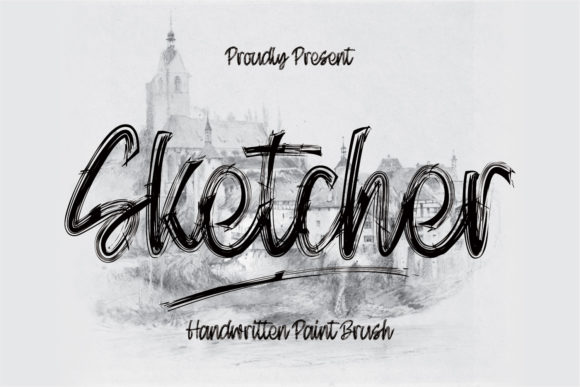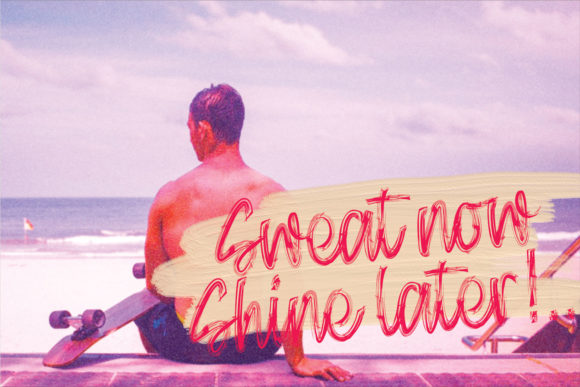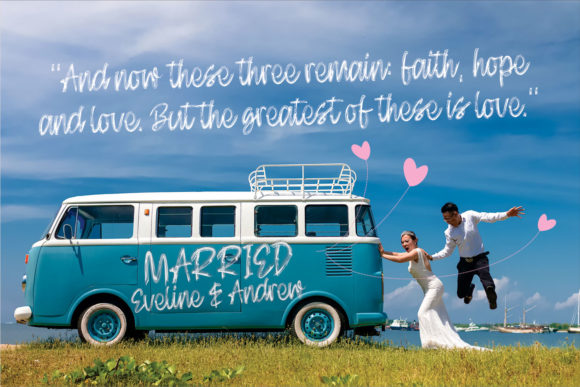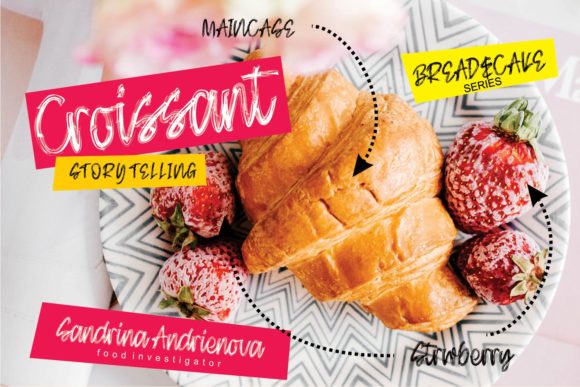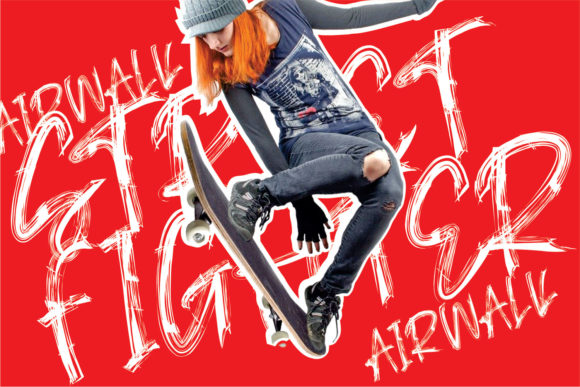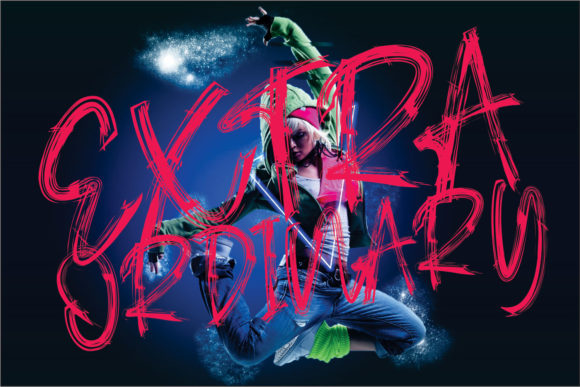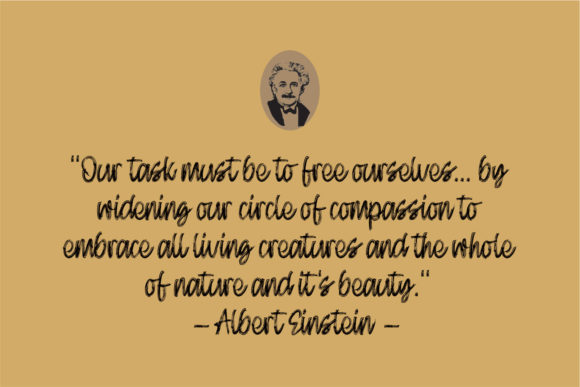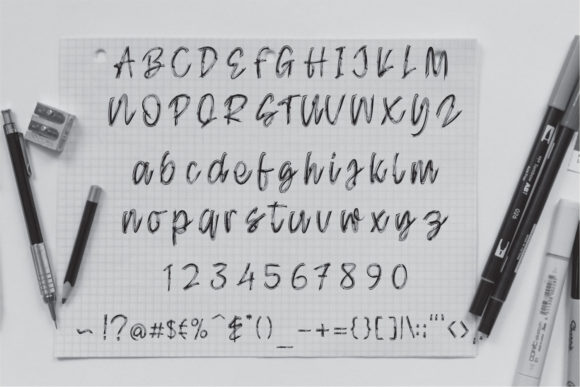
Sketcher Font
About Sketcher Font
Sketcher is a lovely handwritten font, created with the help of a brush pen. Masterfully designed to become a true favorite, this font has the potential to bring each of your creative ideas to the highest level!